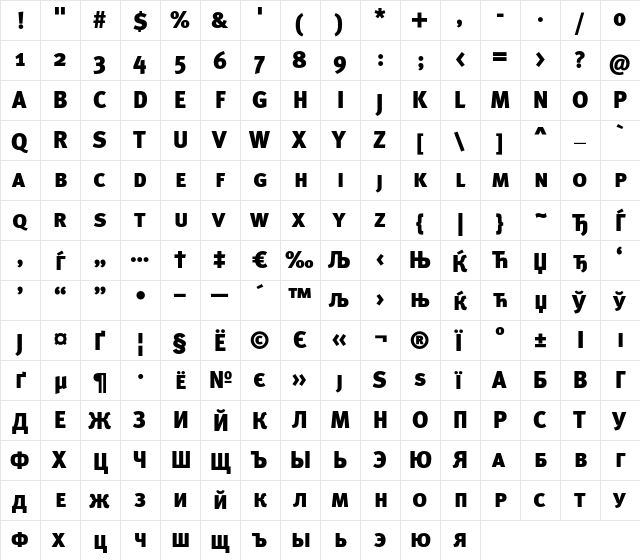
MetaBlackCyr-Caps Regular
Design Context for MetaBlackCyr-Caps Typeface
MetaBlackCyr-Caps takes a measured approach to typography — its balanced proportions and neutral character make it a reliable workhorse for both digital and print work.